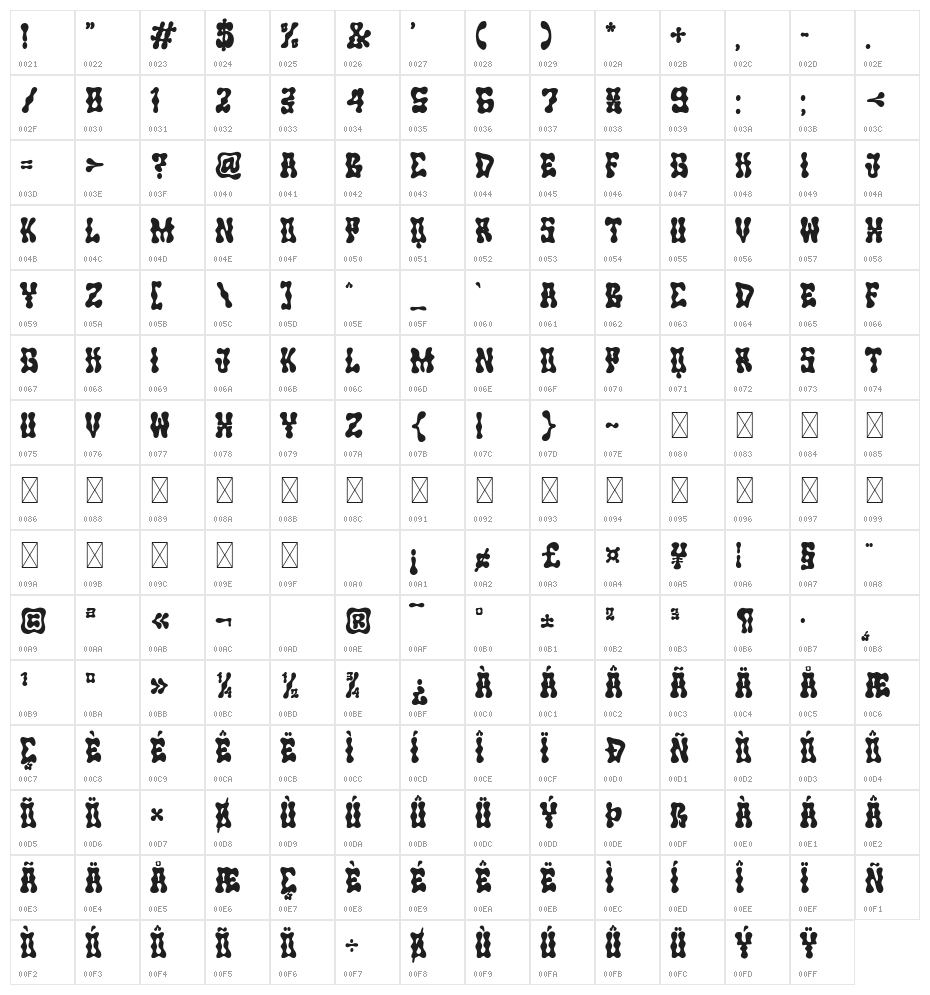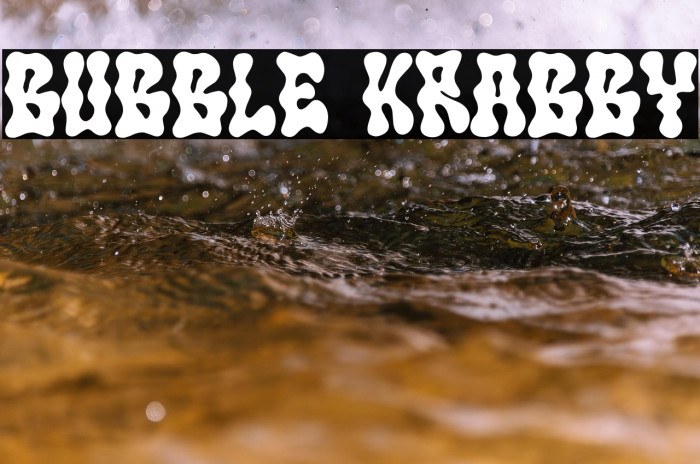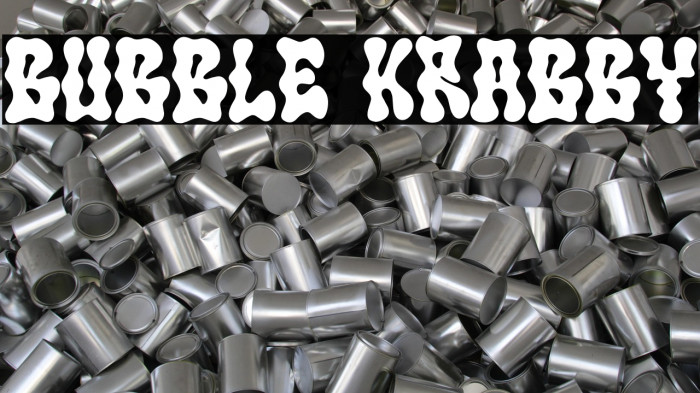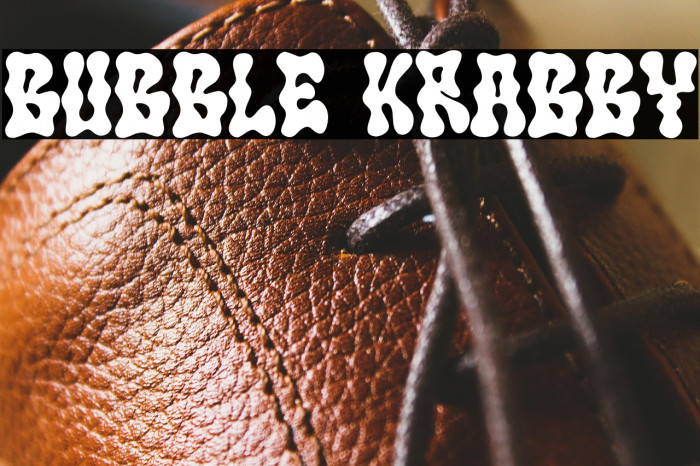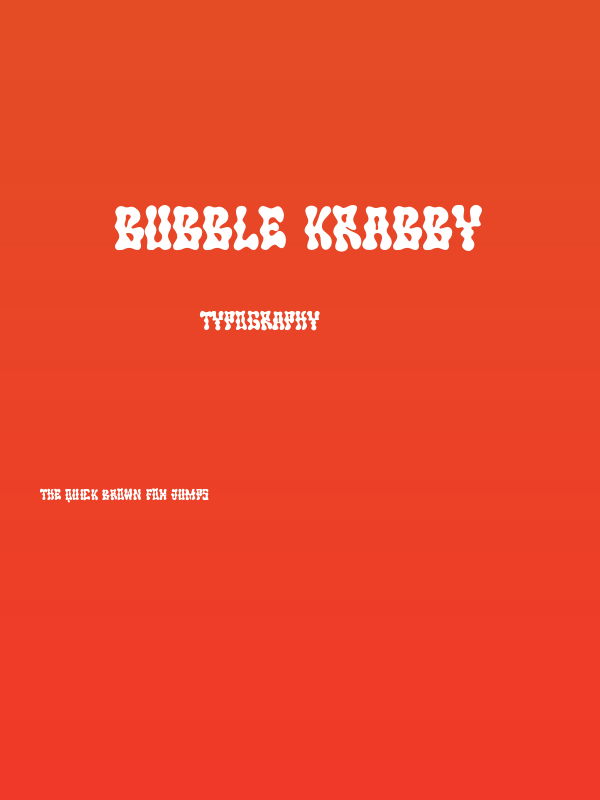
Bubble Krabby Font
Bubble Krabby Description
This playful and bold font features a bubbly, organic design that resembles liquid or foam. The characters are rounded and thick, with a whimsical appearance that adds a sense of fun and creativity. The font's unique style makes it stand out, with each letter having a distinct personality. The numbers and special characters maintain the same playful aesthetic, ensuring consistency across all text elements. Its boldness and distinctive shapes make it ideal for eye-catching designs.
| Proposed Projects | Ideal for children's book covers, playful branding, party invitations, and creative posters. |